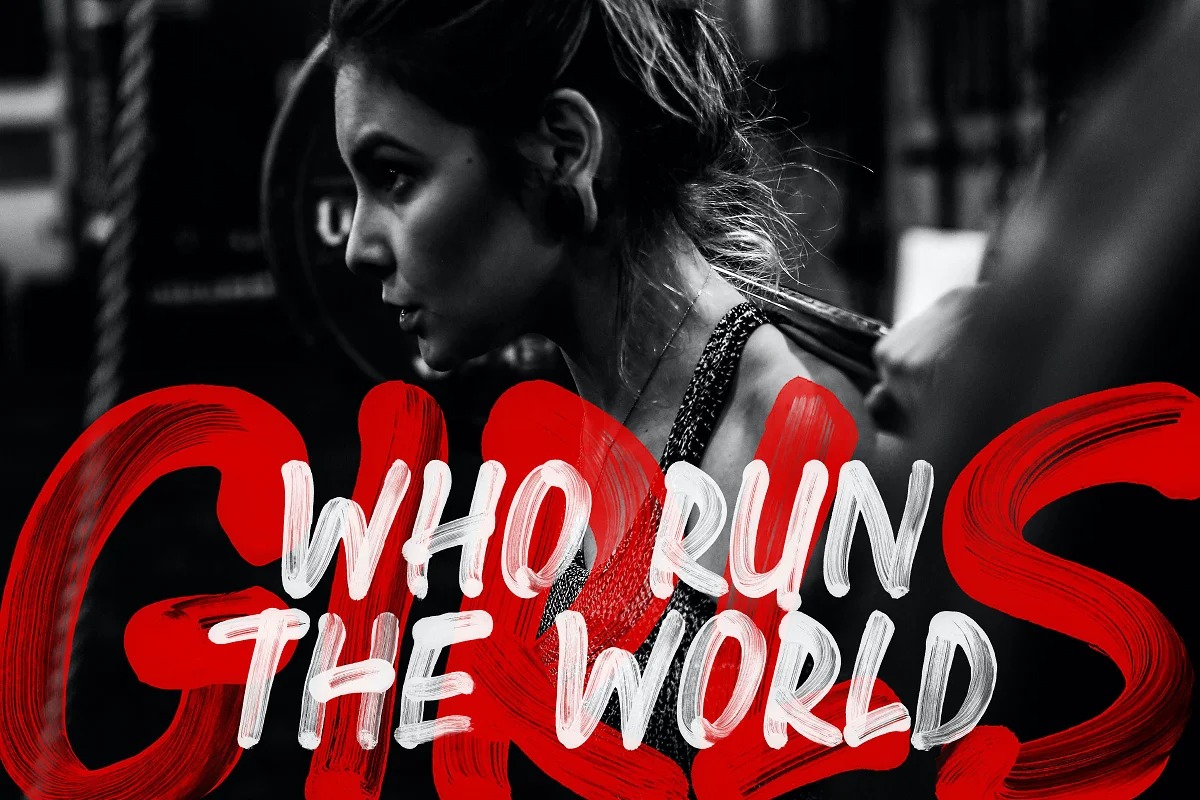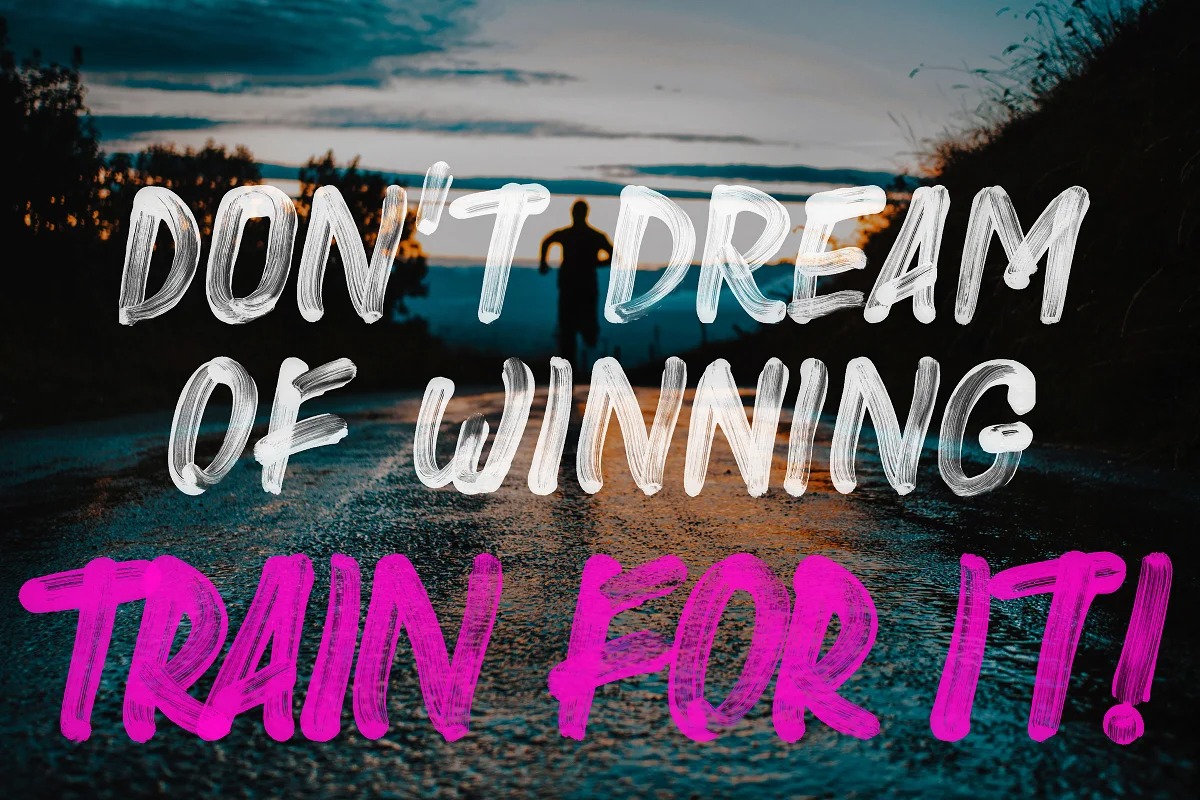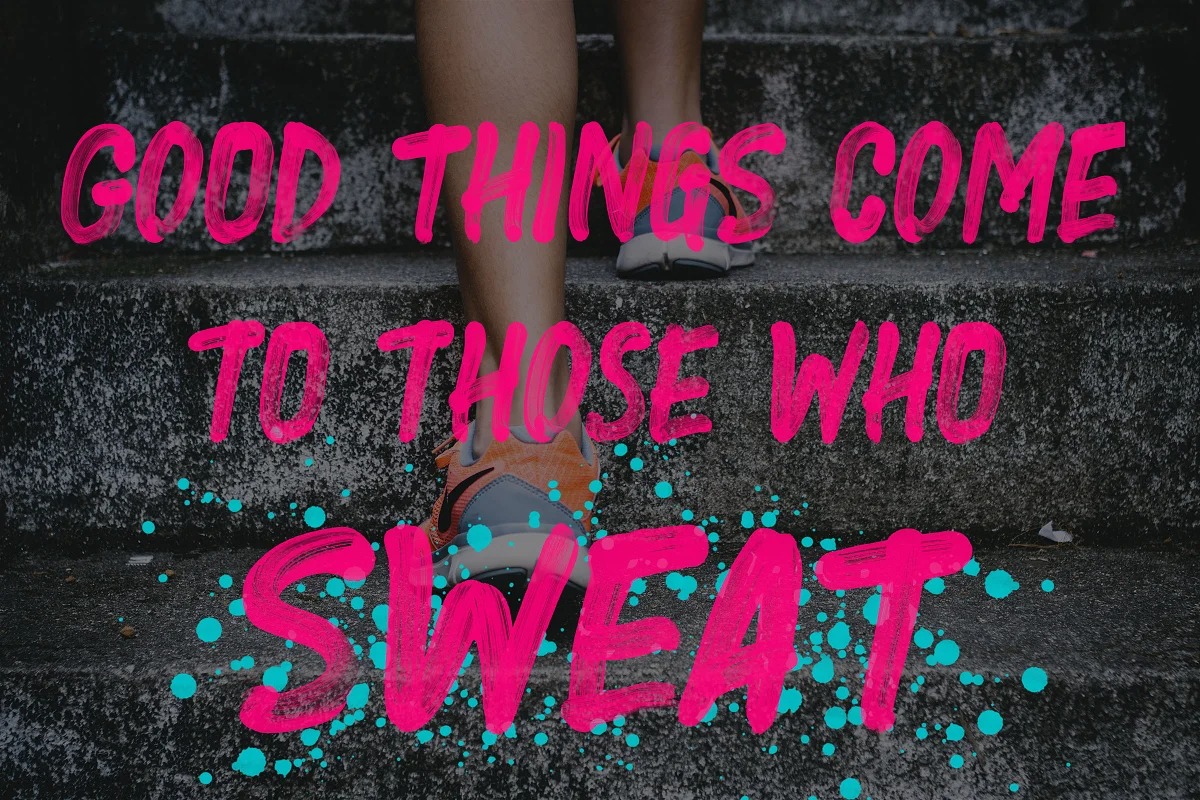
Strive Brush Font
It’s a minimal handwritten brush font, available as SVG and regular. This slightly chunky all-caps font includes 2 sets of letters, providing you with the most realistic hand written final design possible. Strive includes the standard OTF font, plus an extra SVG font file which features a more realistic transparency and texture.
This font is perfectly suited for marketing & advertising, quotes & social media posts, plus much more.